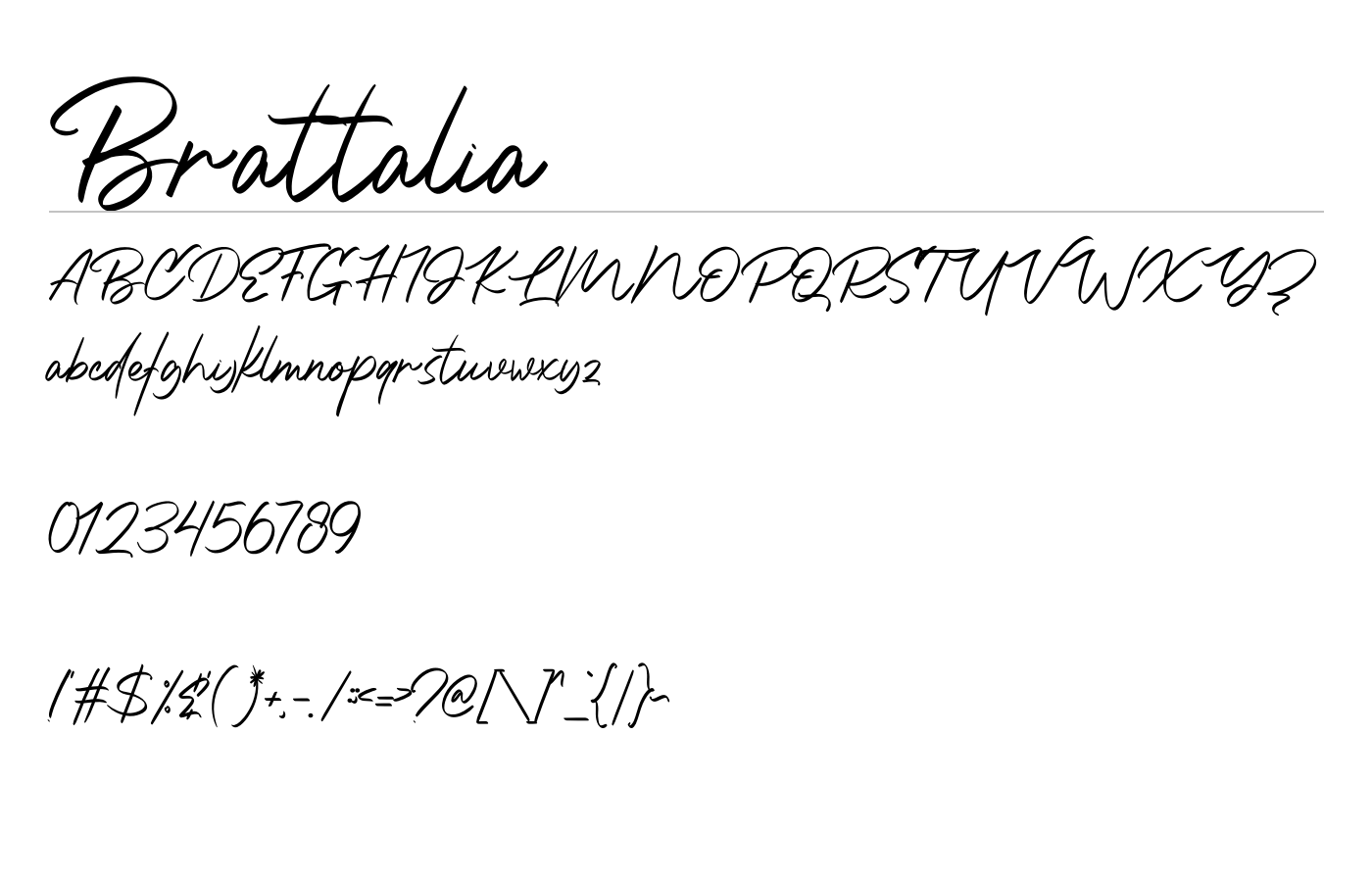
Brattalia is a delicate, handwritten script font with a light weight and elegant, flowing strokes that give it a sophisticated yet personal feel. Its slender letterforms and slight slant create a graceful, airy appearance, making it ideal for creative branding, invitations, and projects that seek a touch of refined charm and individuality. This font works beautifully in headlines or decorative uses where a soft, stylish, and approachable aesthetic is desired.
Brattalia Font
About Brattalia Font
| Font family | Brattalia Font |
| Designer | Fahrul Arjianto |